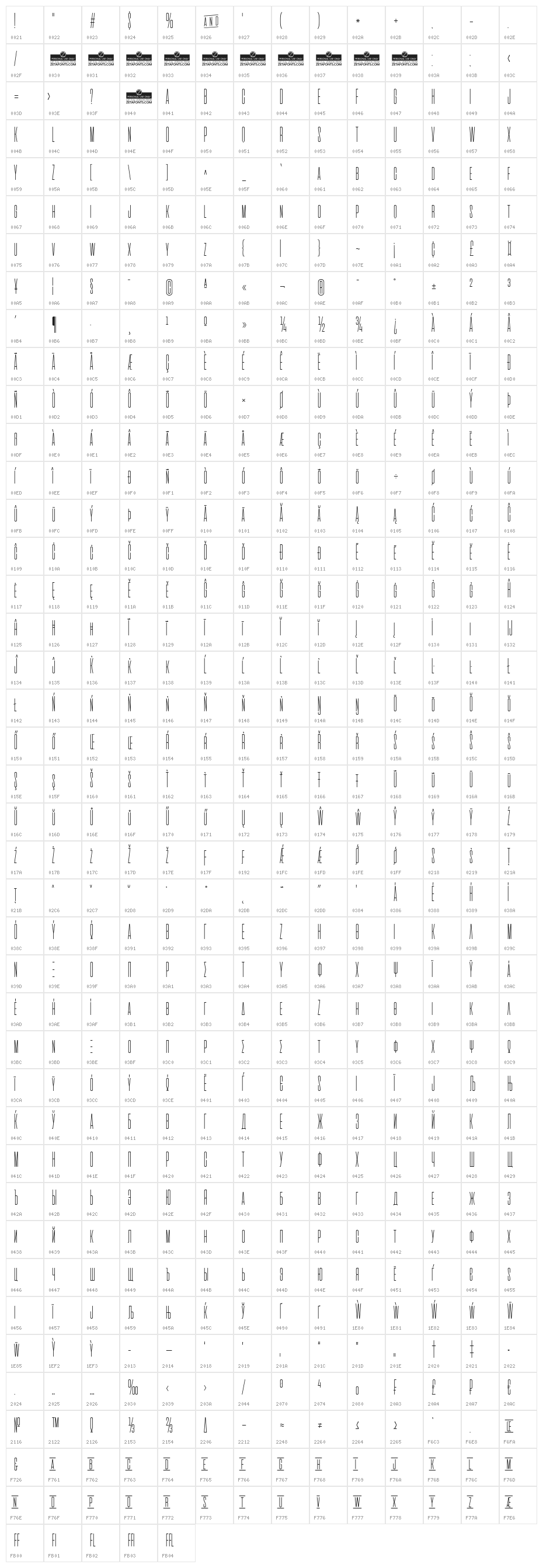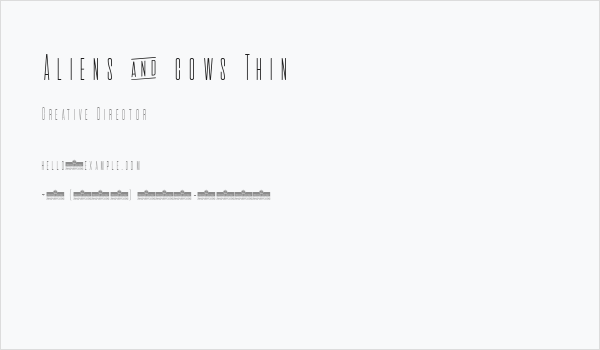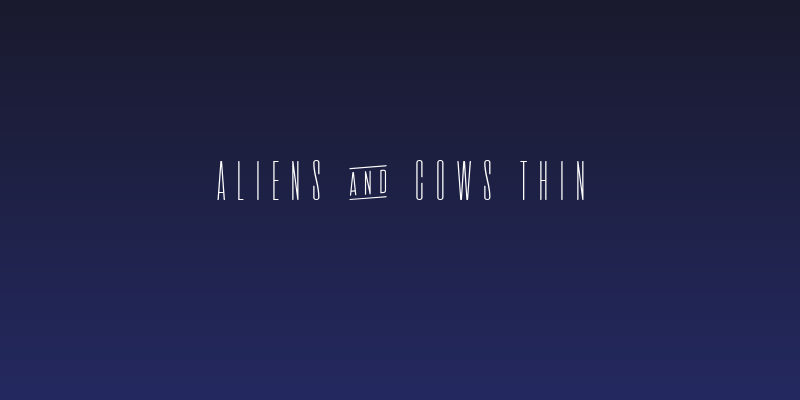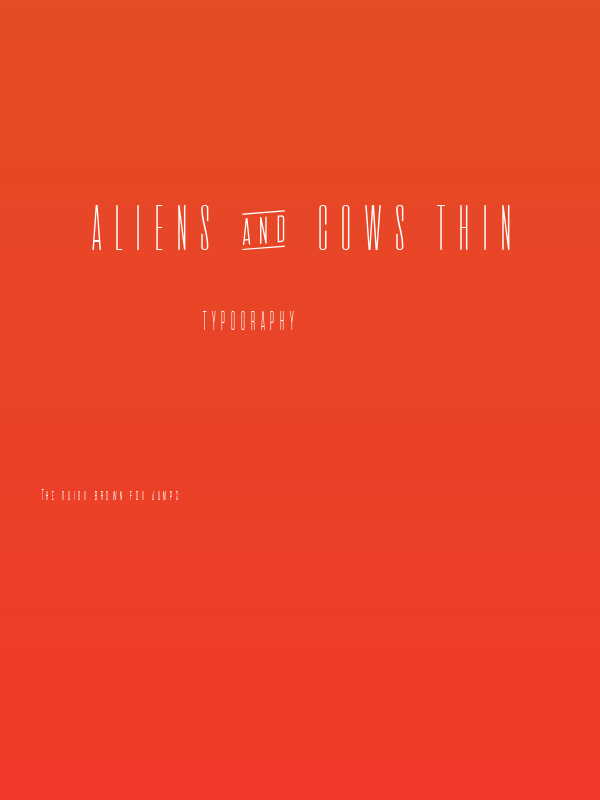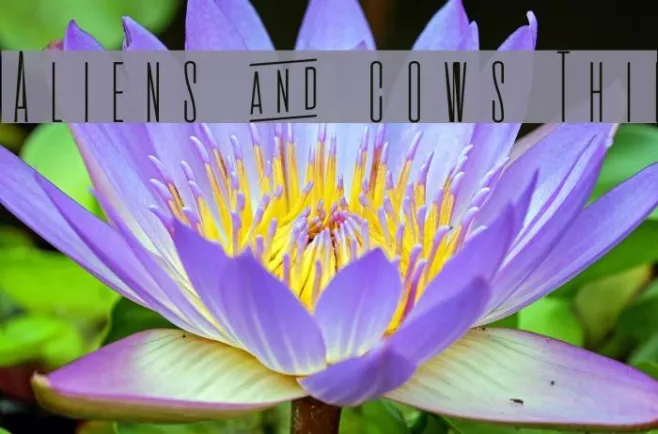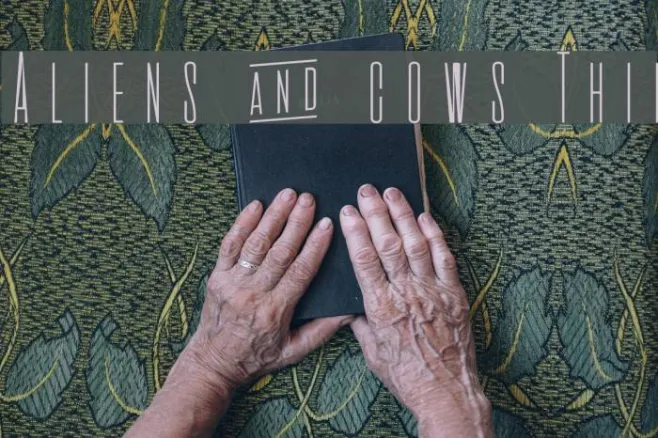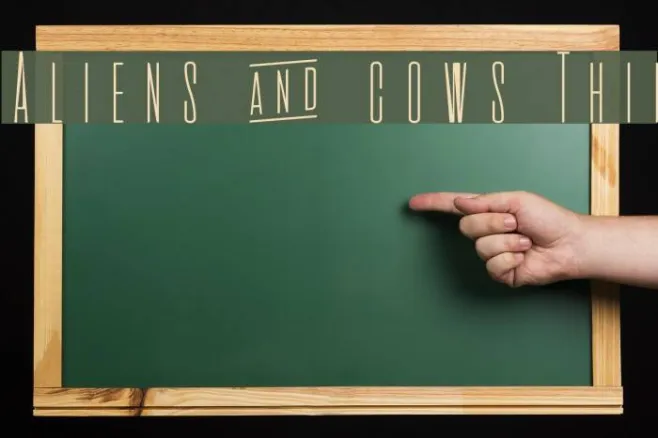
Aliens & cows Thin Font
Aliens & cows Thin Description
This font features a tall, narrow design with a distinctly modern and minimalistic aesthetic. The characters are elongated and maintain a consistent thin stroke throughout, giving it a sleek and elegant appearance. The uppercase and lowercase letters are uniform in width, contributing to a cohesive look. The font's geometric structure is evident in its clean lines and sharp angles, making it suitable for contemporary design projects. The special characters and numbers are designed to match the overall style, ensuring visual harmony across all elements.